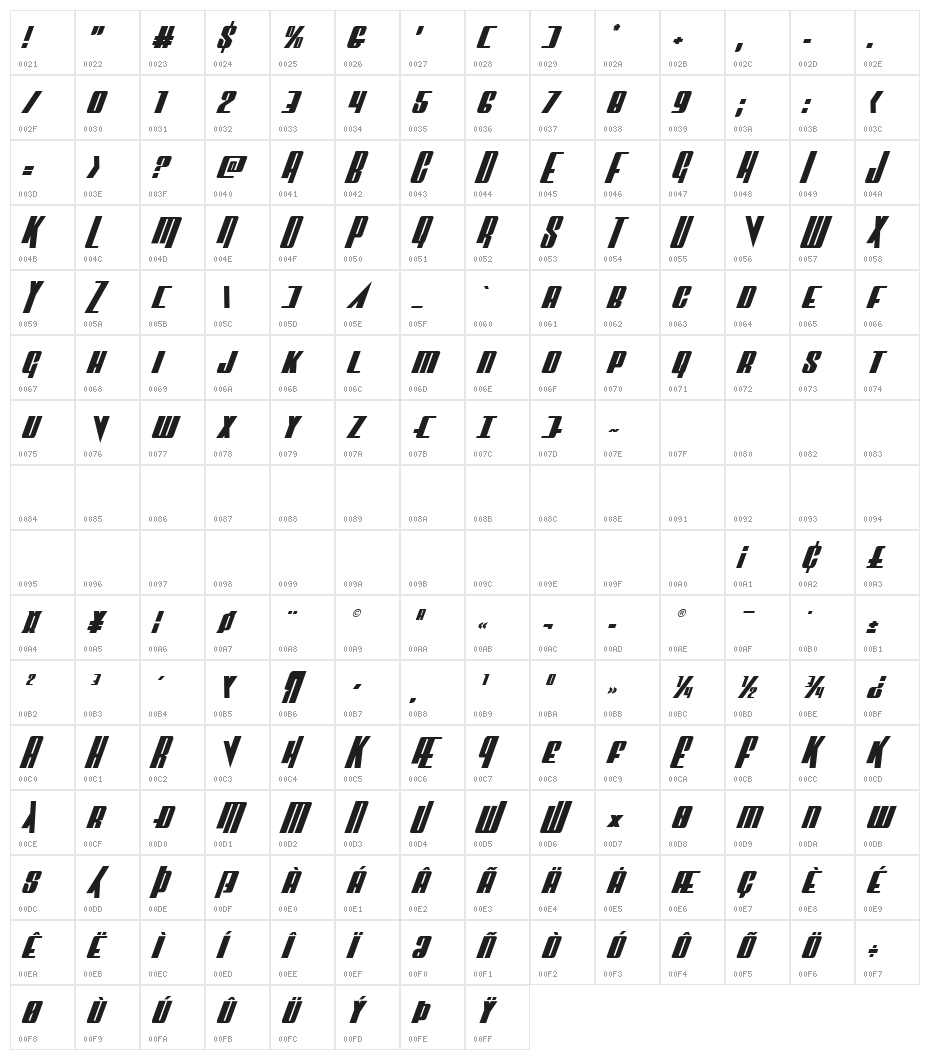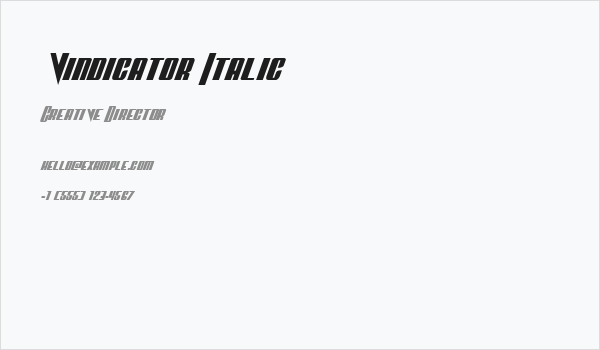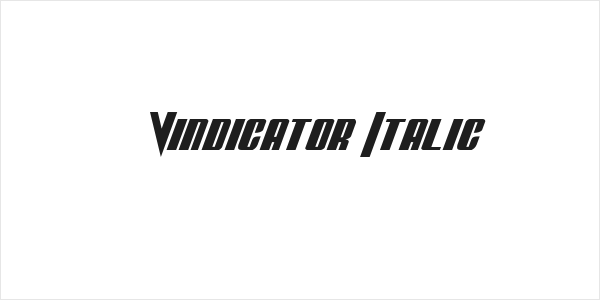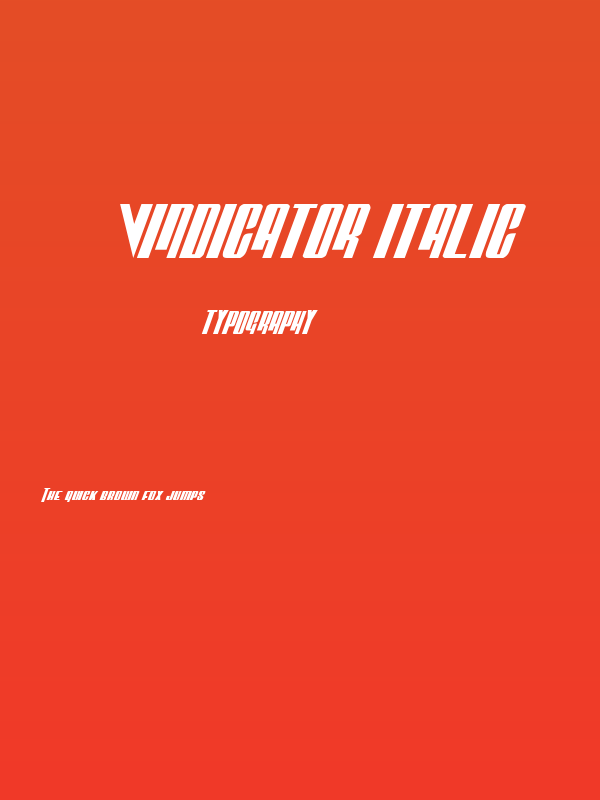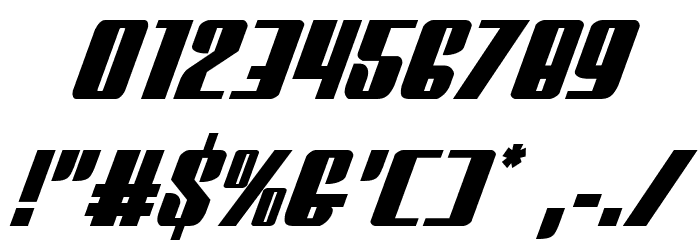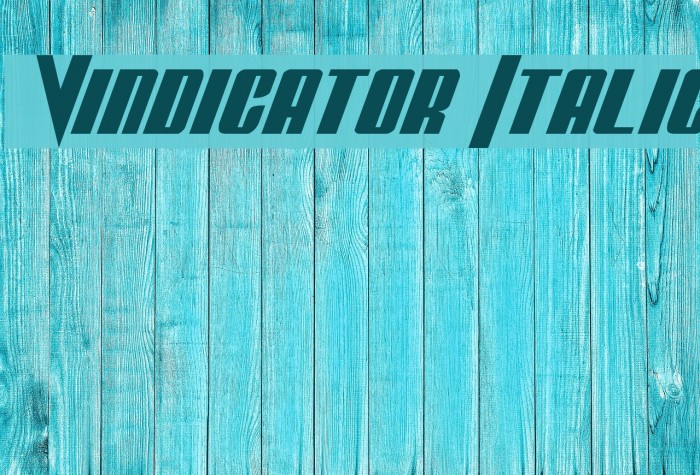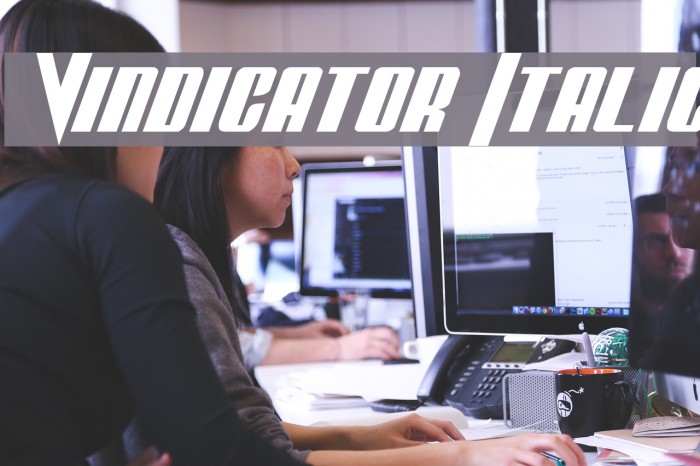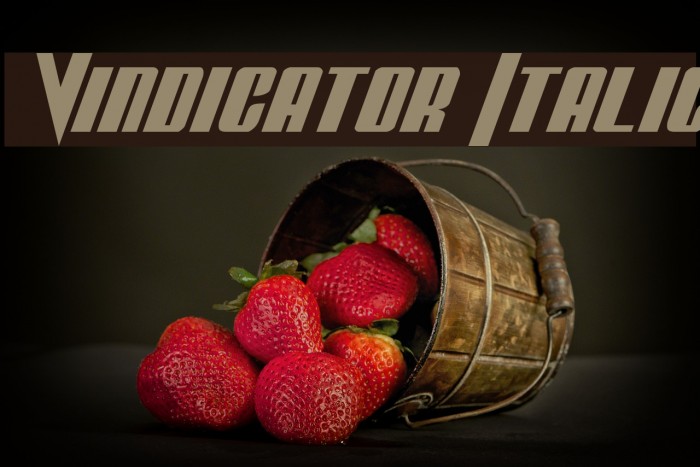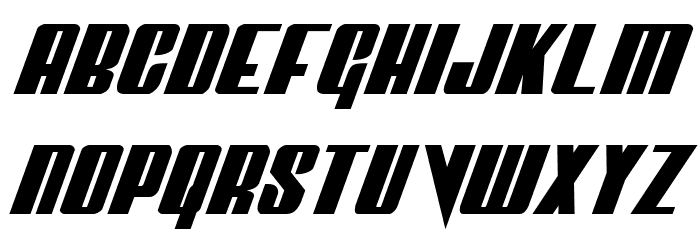
Vindicator Italic Font
Vindicator Italic Description
This font features a bold and dynamic style with a strong italic slant, giving it a sense of motion and energy. The characters are sharply angled with thick strokes, creating a powerful and impactful appearance. The uppercase and lowercase letters maintain a consistent style, with the uppercase being particularly prominent. Numbers and special characters follow the same bold and italicized design, ensuring uniformity across all elements. The font's aggressive and modern look makes it suitable for attention-grabbing designs.
VINDICATOR-ITALIC UPPERCASE
VINDICATOR-ITALIC LOWERCASE
VINDICATOR-ITALIC OTHER CHARS